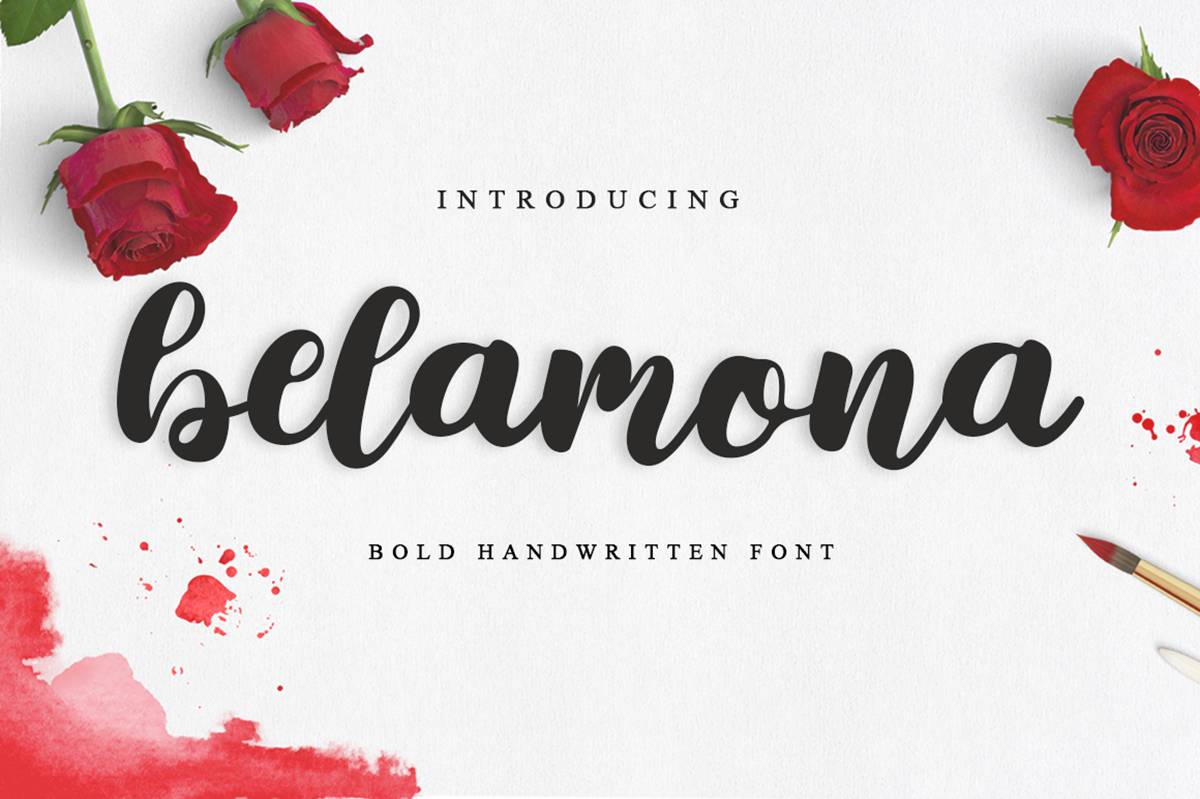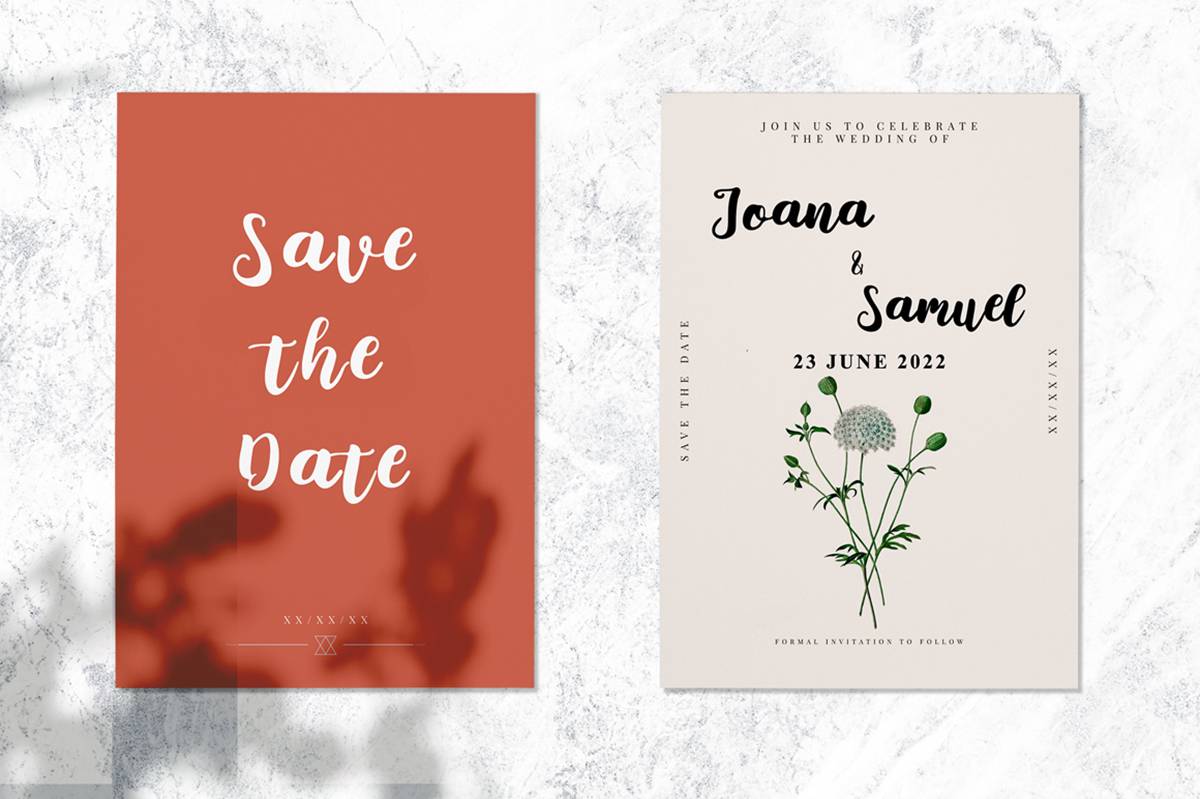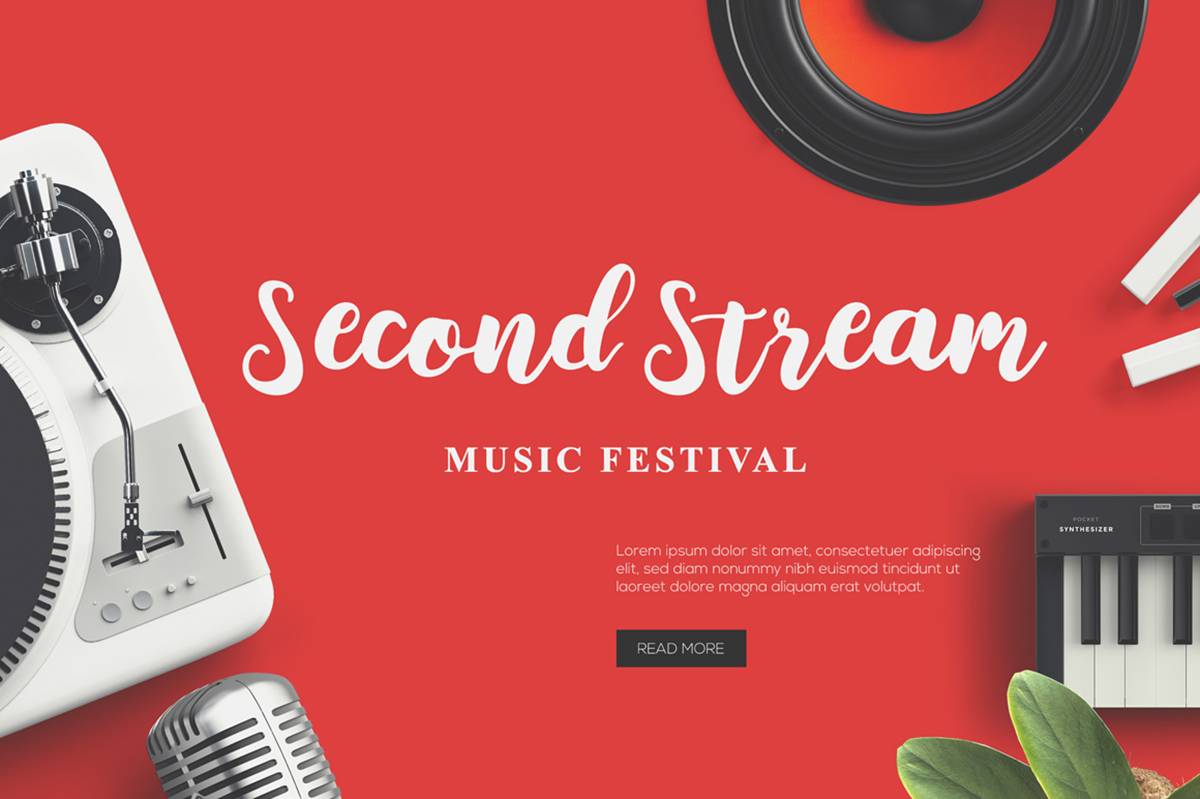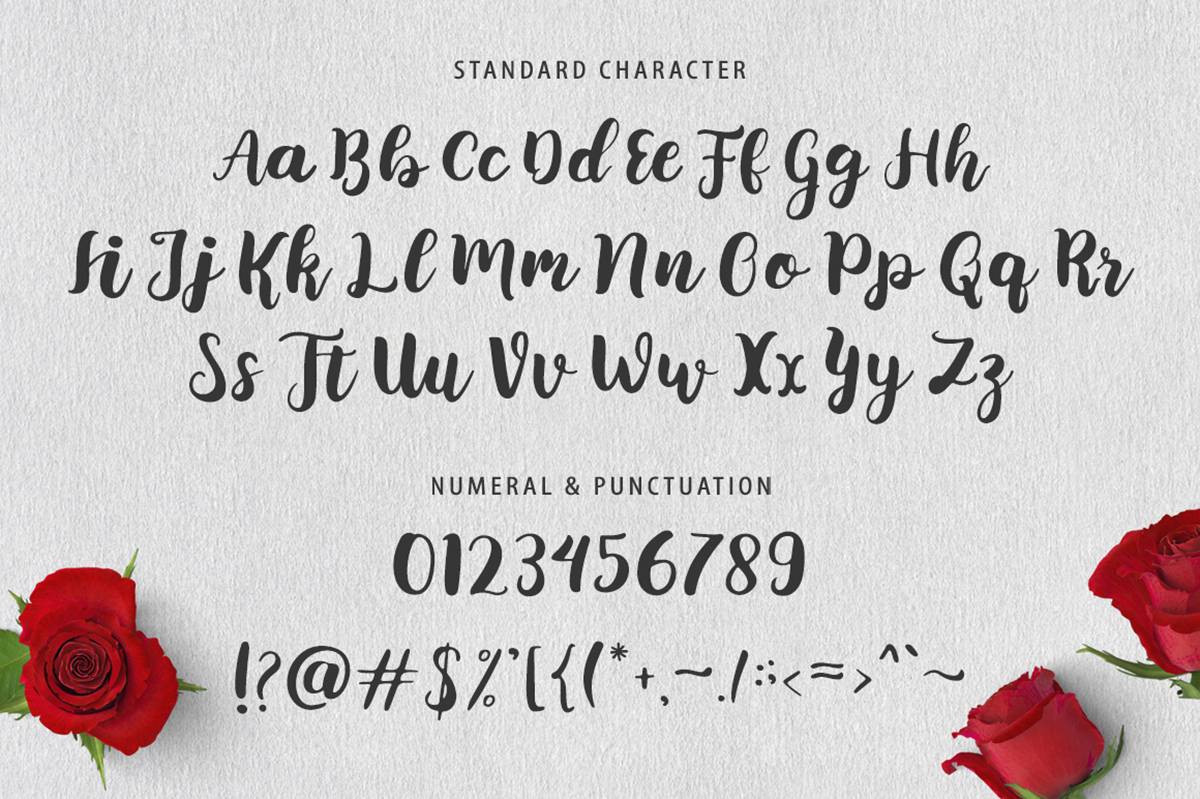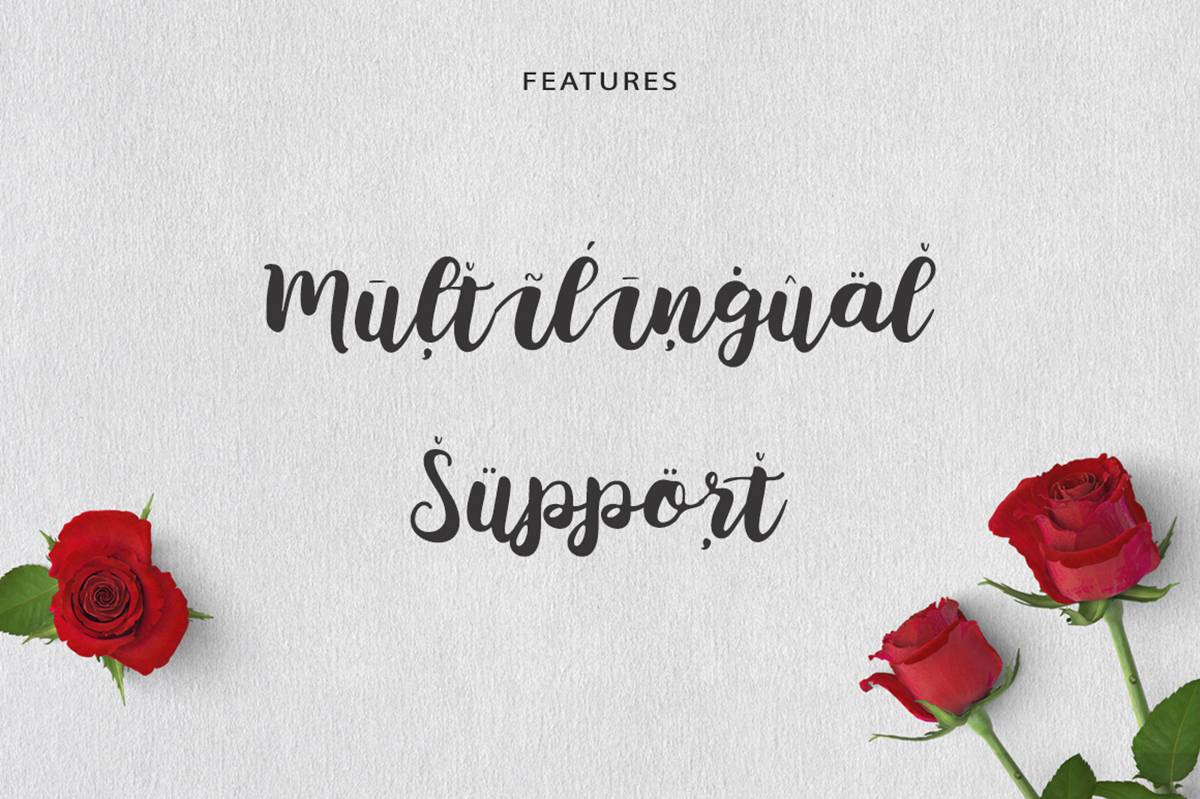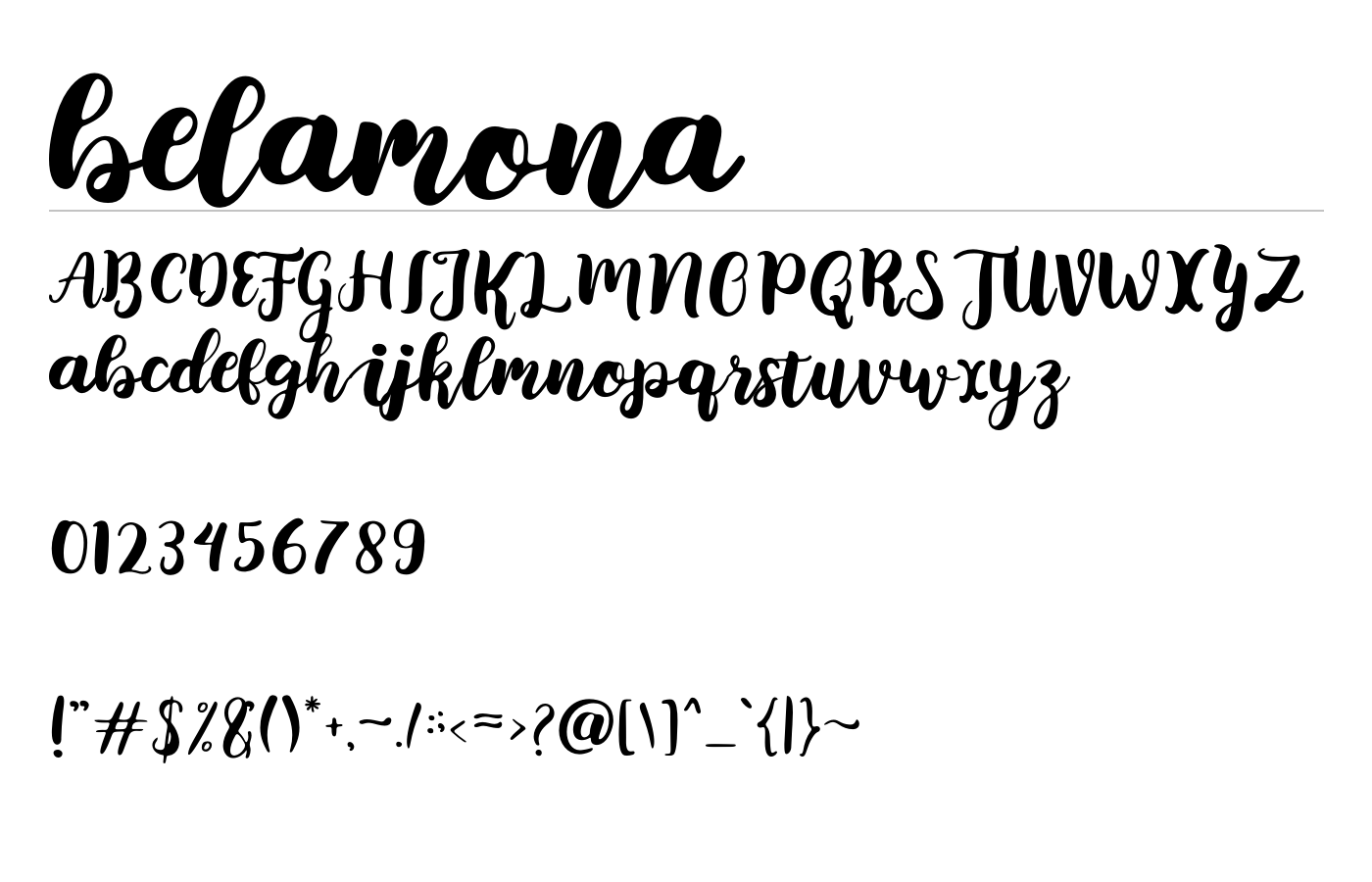
Belamona Script Font is a bold, lively script typeface with smooth, rounded strokes and a playful yet elegant charm. Its friendly curves and flowing letterforms make it perfect for creative branding, invitations, and display use where a warm, personal touch is desired. This font works well for fashion, lifestyle, and artistic projects that need a modern yet approachable handwritten feel.
Belamona Script Font
About Belamona Script Font
| Font family | Belamona Script Font |